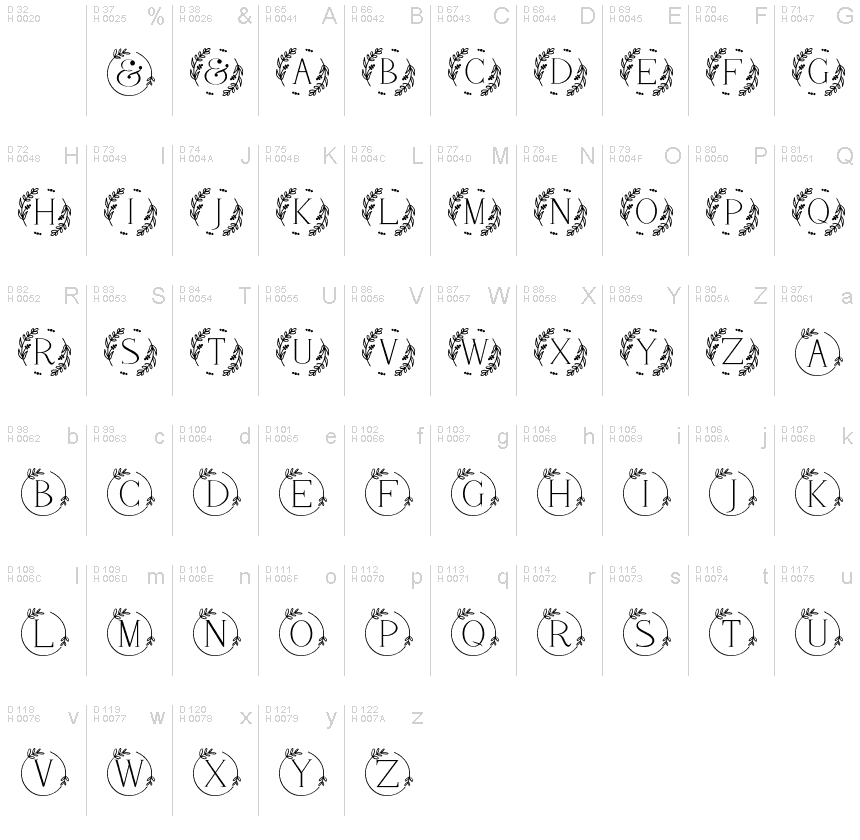
Nirmala
Nirmala, a charming creation by Letterayu, is a display font that adds a touch of whimsy to any project.
With its decorative style and semi-light weight, Nirmala brings an element of playfulness to branding materials, packaging designs, and website headers. Its condensed width allows for efficient use of space while maintaining legibility. Whether you're working on a fashion campaign or a children's book cover, Nirmala's all caps feature will make your text pop with personality.
Let Nirmala be the creative spark that sets your project apart from the rest.